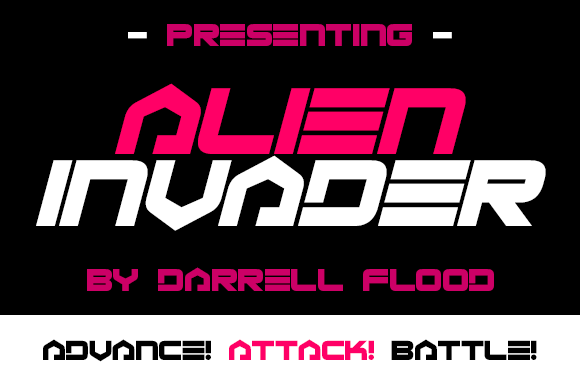
Unleash the Future with Alien Invader Font
Are you a designer, crafty enthusiast, or simply a fan of all things Sci-Fi? Look no further! Introducing the Alien Invader Font, a futuristic, sleek, and smooth display font that will transport your designs to another galaxy. This unique, alien-style font is perfect for space adventure designs, high-tech themes, crypto scene updates, and general Sci-Fi use.
What Makes Alien Invader Font Stand Out?
The Alien Invader Font boasts a distinct, out-of-this-world style that will make your designs pop. Its smooth lines and curves evoke a sense of futurism, while its unique alien-inspired characters will add an extraterrestrial touch to any project. Whether you’re designing a logo, poster, or social media graphic, this font is sure to grab attention.
Perfect for Sci-Fi and Space-Themed Designs
The Alien Invader Font is tailor-made for Sci-Fi and space-themed designs. Imagine using it for:
- Space adventure posters and flyers
- High-tech gadget and product designs
- Crypto and blockchain-related projects
- Sci-Fi movie and book covers
- Galactic-themed party invitations and decorations
Key Features of Alien Invader Font
Here are some key features that make Alien Invader Font a must-have for designers:
- Smooth and sleek lines: Perfect for creating futuristic and high-tech designs
- Unique alien-inspired characters: Add an extraterrestrial touch to your designs
- Multi-language support: Use the font for designs in various languages
- Scalable and versatile: Suitable for a wide range of design applications, from logos to posters
Tips for Using Alien Invader Font
To get the most out of the Alien Invader Font, here are some tips:
- Experiment with colors: Use bright, bold colors to match the font’s futuristic vibe
- Play with textures: Add a metallic or neon effect to give your design an otherworldly feel
- Combine with other fonts: Pair Alien Invader with a sans-serif font for a striking contrast
Who Can Benefit from Alien Invader Font?
The Alien Invader Font is perfect for:
- Graphic designers: Looking for a unique font to add to their collection
- Crafty enthusiasts: Creating DIY projects, such as handmade cards and decorations
- Marketing and branding teams: Seeking a bold, attention-grabbing font for their campaigns
- Sci-Fi fans: Who want to add a touch of futurism to their designs and projects
In conclusion, the Alien Invader Font is a game-changer for designers and crafty enthusiasts looking to add a touch of Sci-Fi flair to their projects. With its unique, alien-inspired style and smooth lines, this font is perfect for a wide range of applications, from space adventure designs to high-tech themes. Get ready to unleash the future and take your designs to new galaxies with the Alien Invader Font!